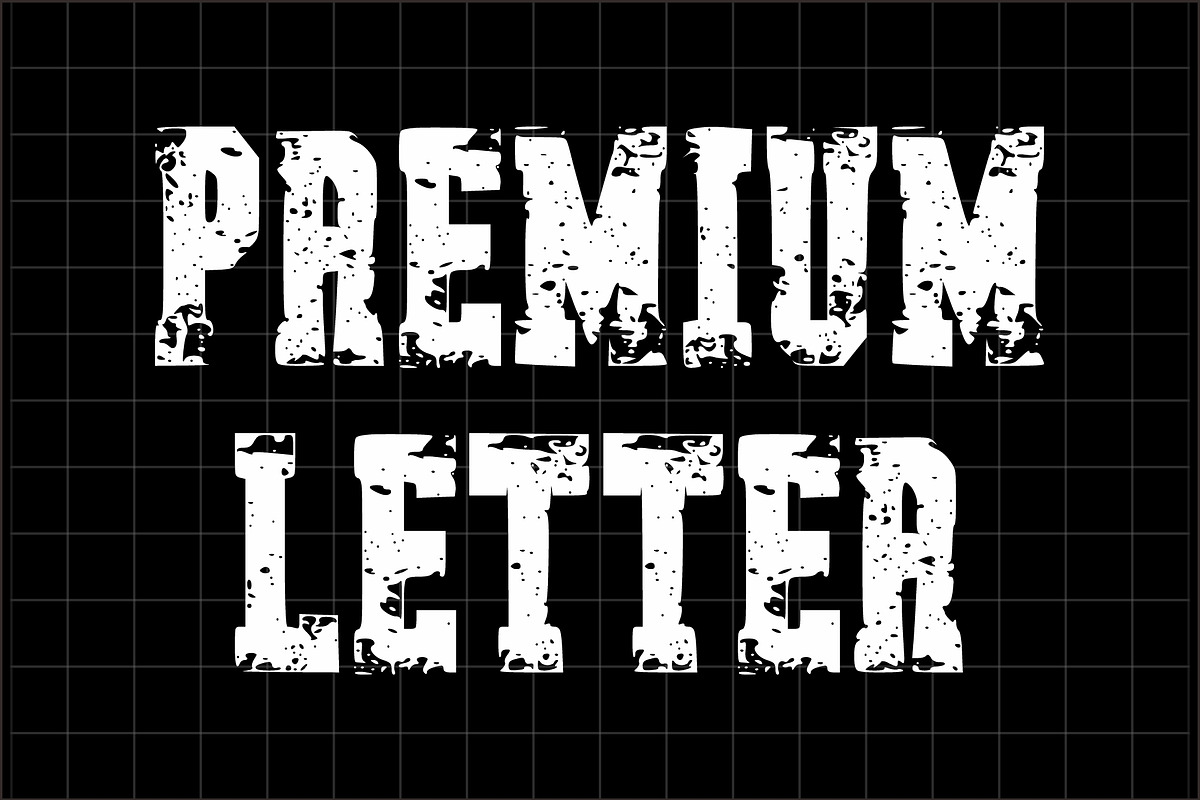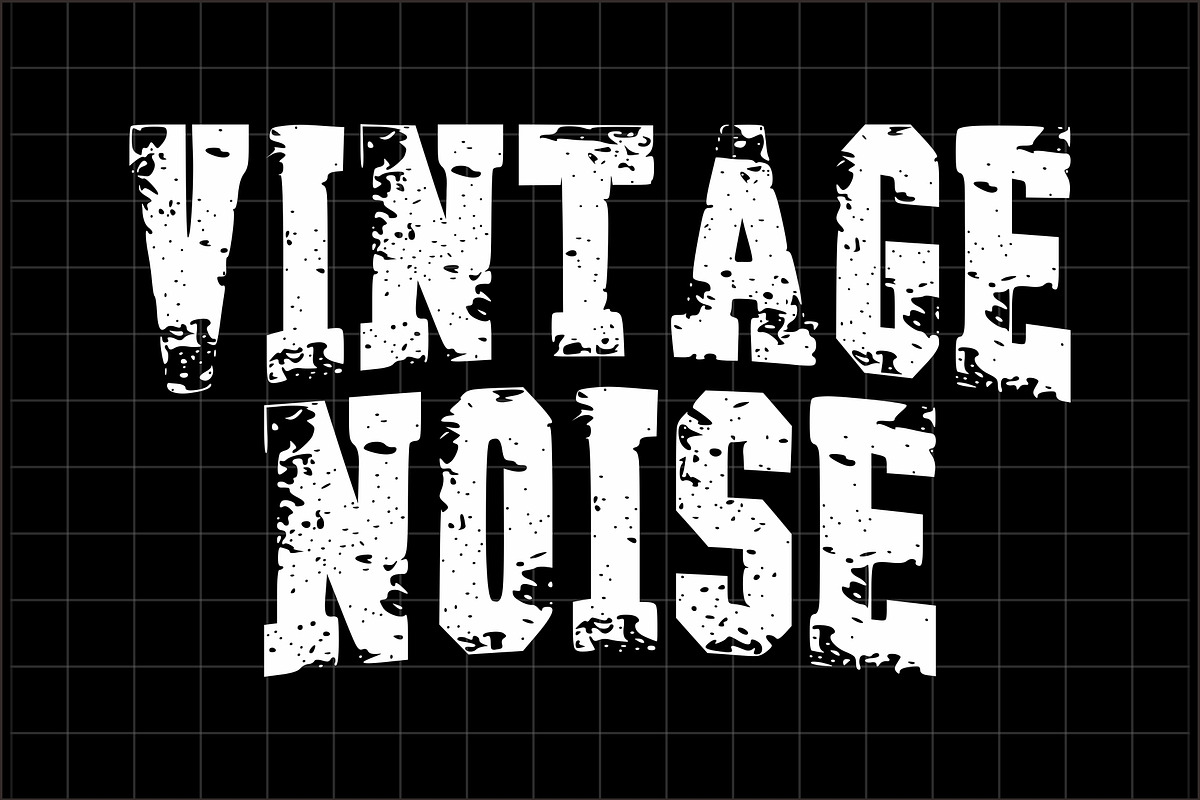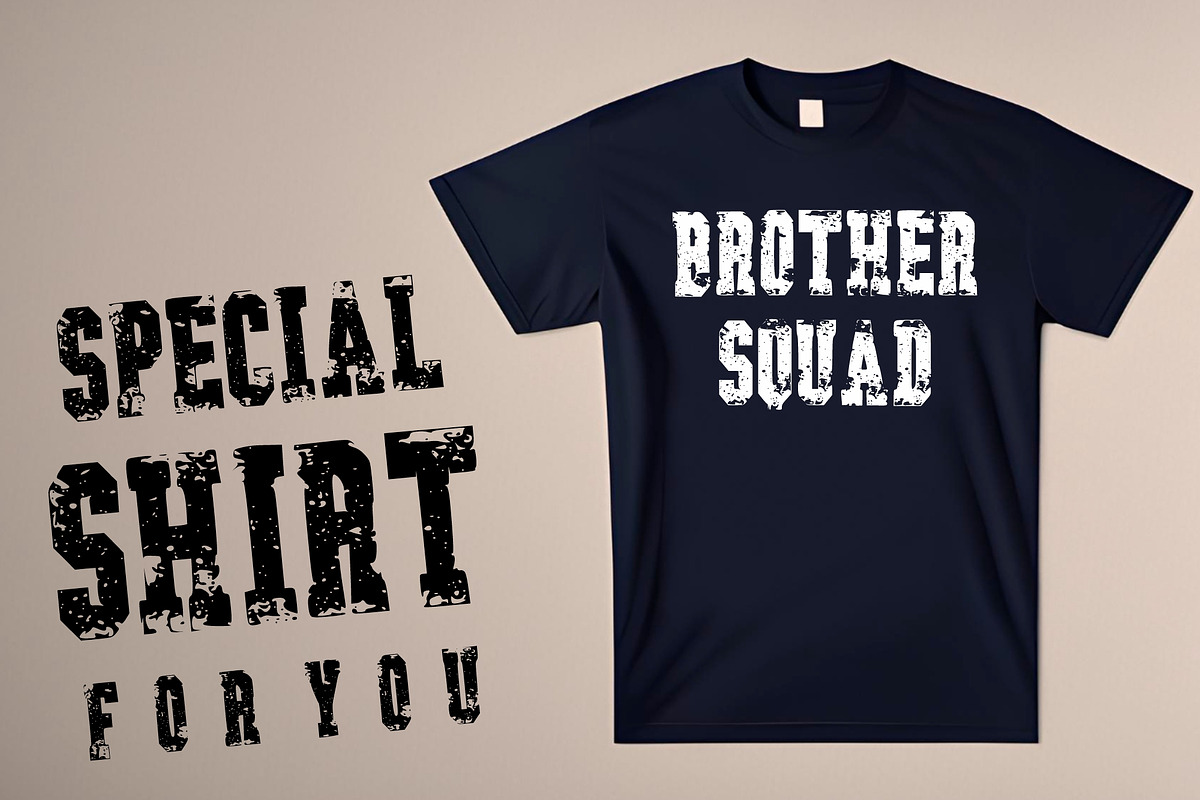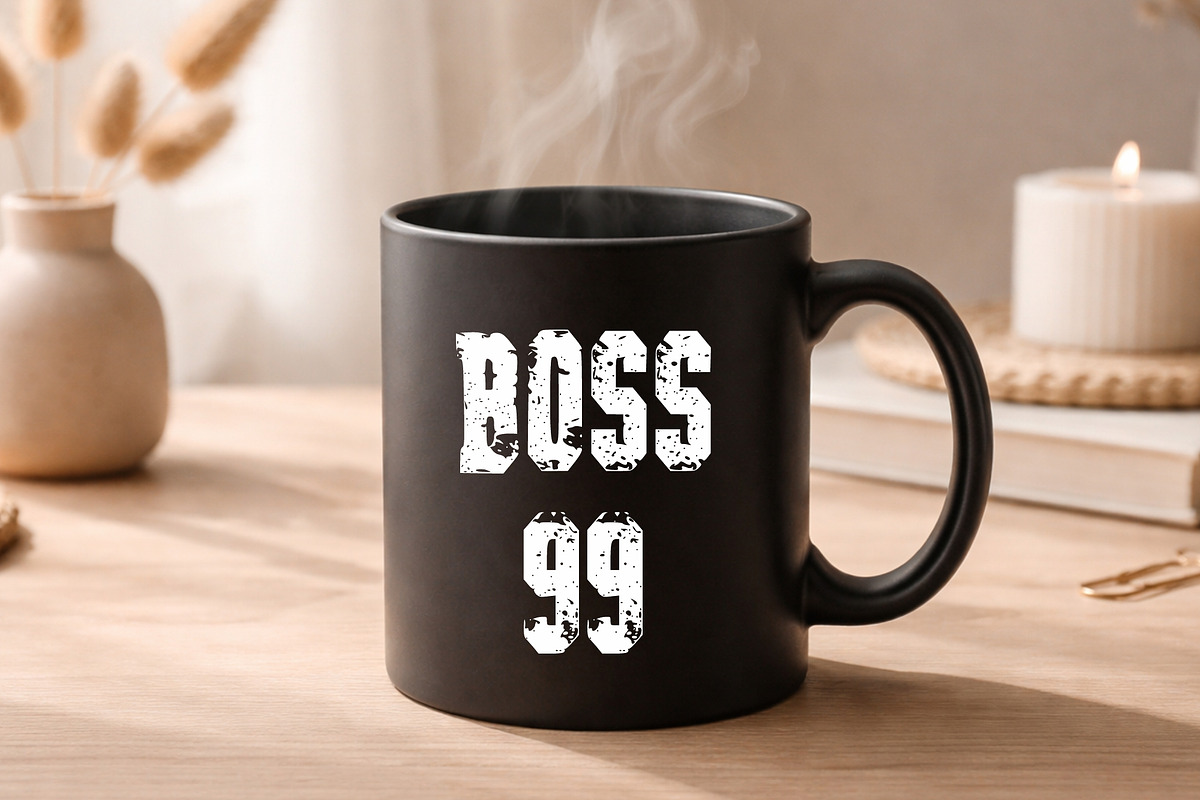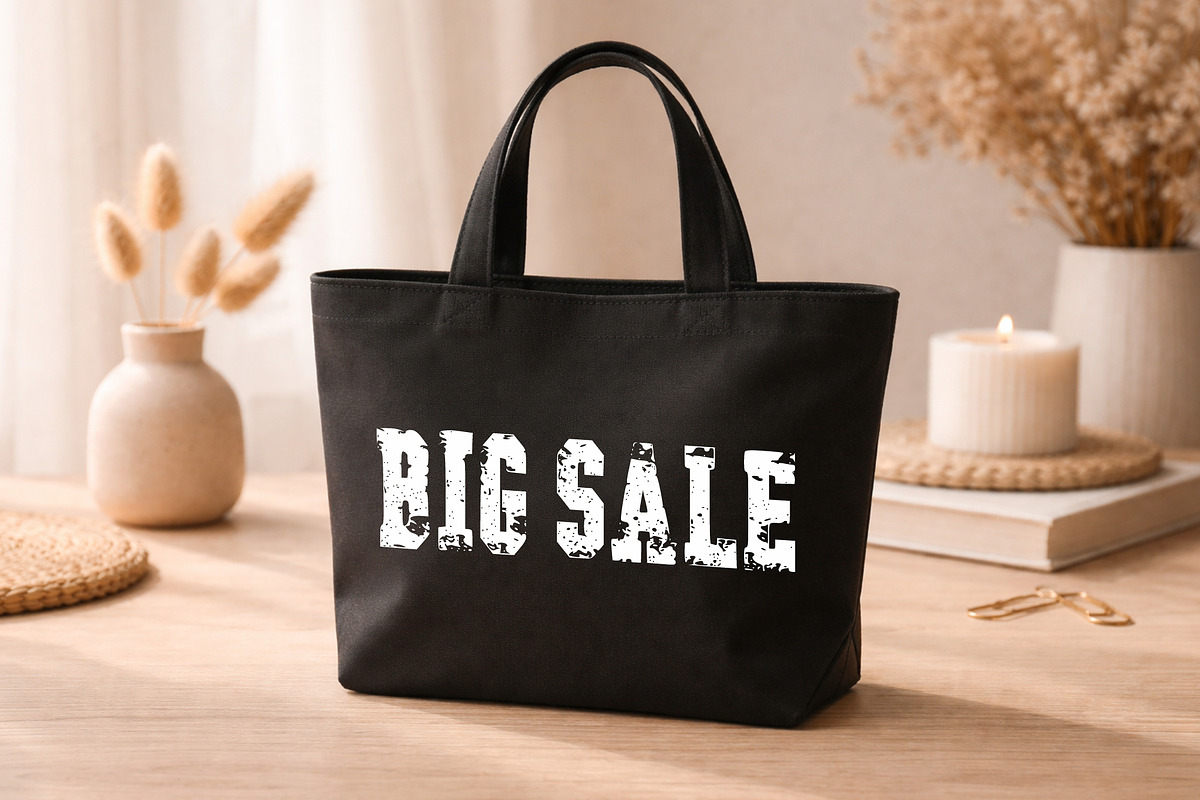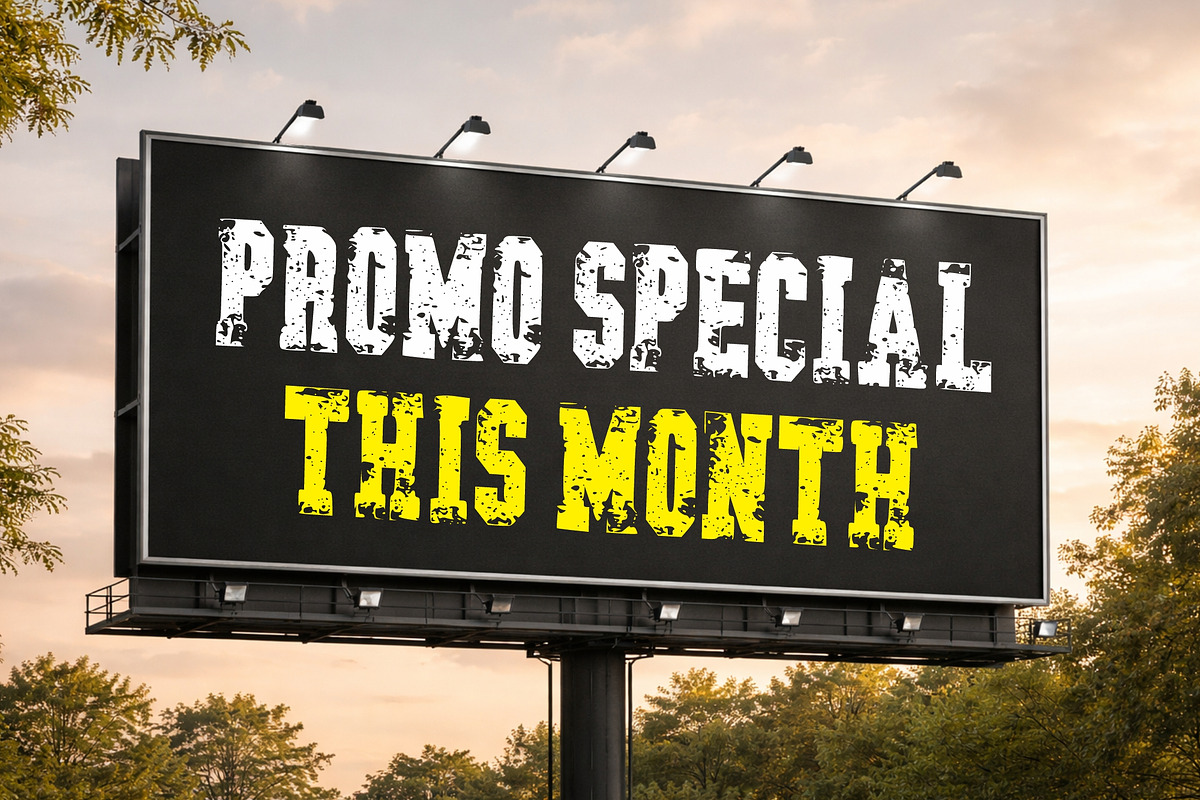
Vintage Noise
Vintage Noise is a bold, distressed display font featuring a rough, worn, and textured grunge effect.
Inspired by industrial typography, urban posters, and vintage print aesthetics, this font delivers a strong and impactful visual presence. The Vintage Noise typeface is perfectly suited for “grunge” aesthetics, rock band posters, or industrial-themed branding where you want to avoid a “perfect” digital look. By using the Vintage Noise font, you give your designs a tactile quality that feels like ink on paper. It pairs exceptionally well with rough textures, halftone patterns, and dark, moody color schemes.
Perfect for branding, posters, streetwear designs, merchandise, headlines, logos, packaging, and social media graphics. The textured noise effect adds an authentic retro feel while maintaining strong readability.
This font works beautifully for projects that need a masculine, bold, rebellious, or industrial character.